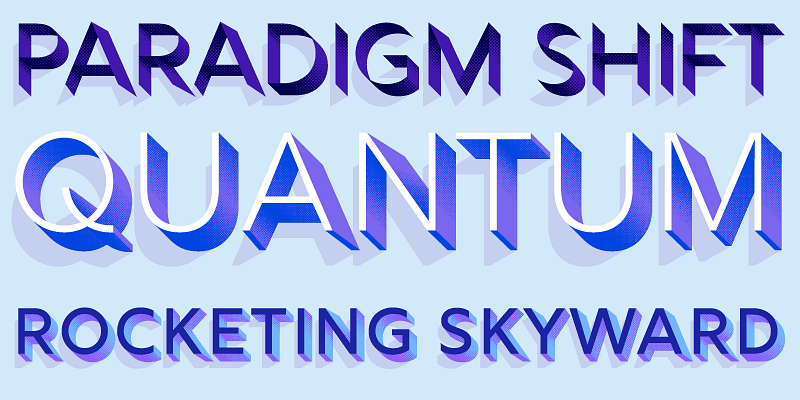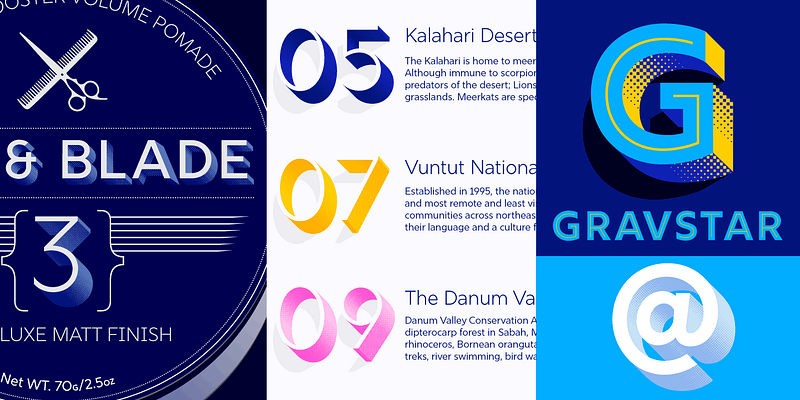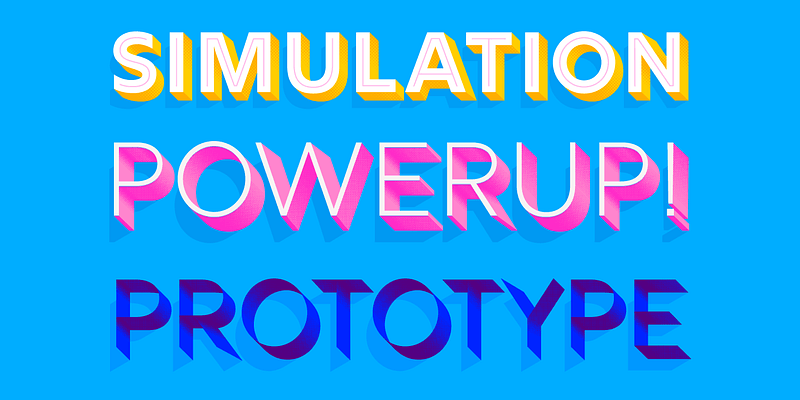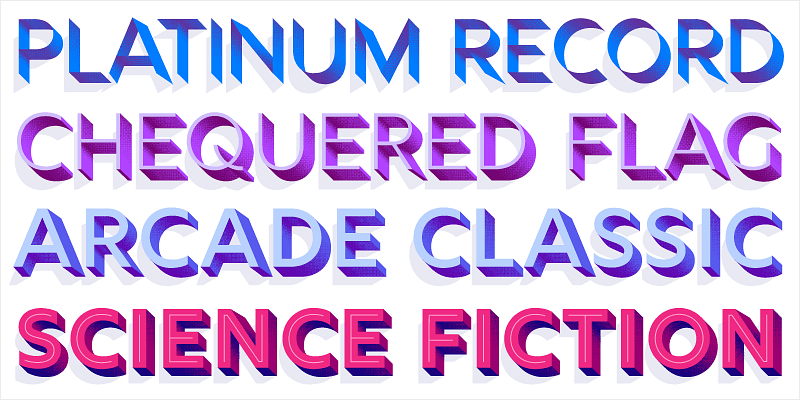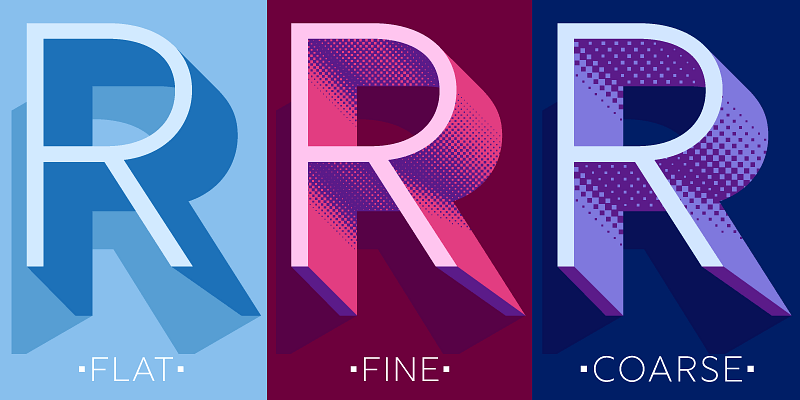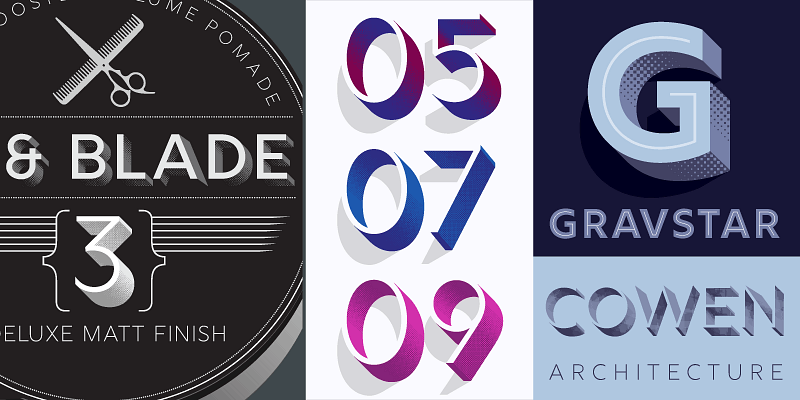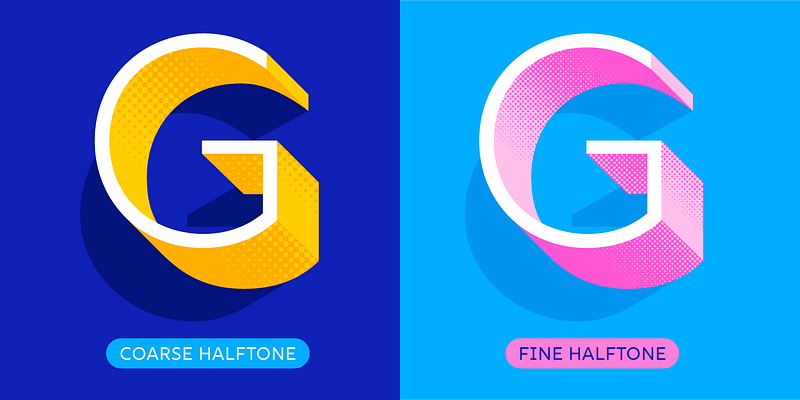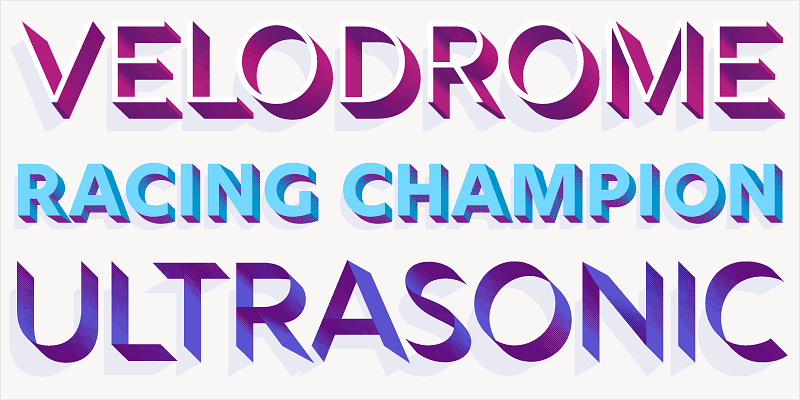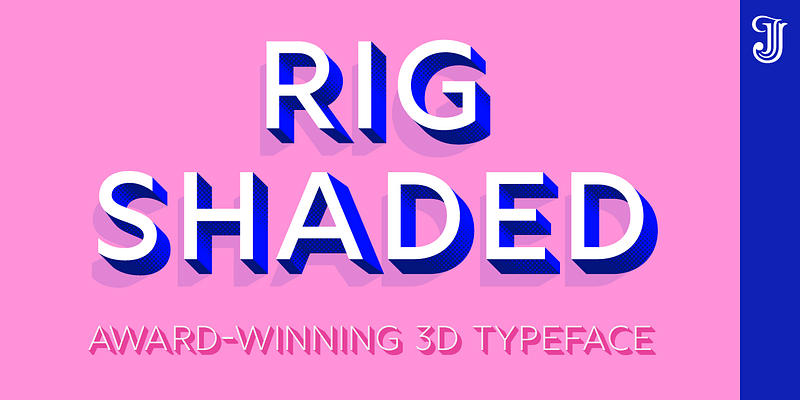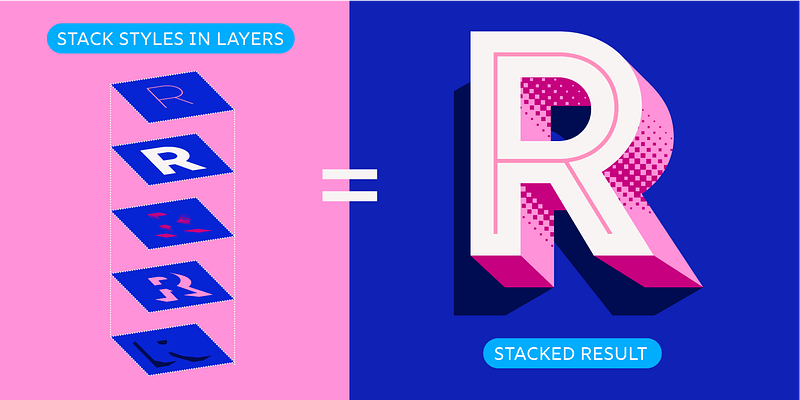
Rig Shaded is an award-winning 3D type family with four versatile weights. Its innovative styles stack together to produce a myriad of combined effects. Choose between flat, coarse or fine shading.